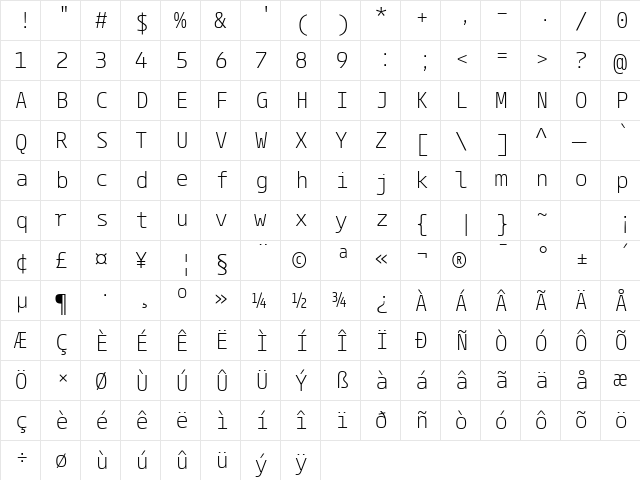
ParadroidMono Light
| Foundry | The Northern Block Ltd |
| Designer | Jonathan Hill |
Design Context for ParadroidMono Typeface
ParadroidMono brings the precise, column-aligned rhythm of monospaced typography to designs that value technical clarity and systematic order. The delicate stroke weight brings airiness and refinement to layouts.
A natural fit for code editors, technical documentation, developer-focused branding, and terminal-inspired UI.
Pro Tip: Pair ParadroidMono with a proportional sans for UI contexts where code-style labels and regular body copy need to coexist.